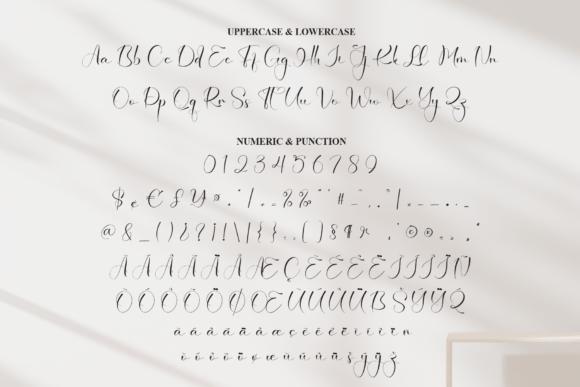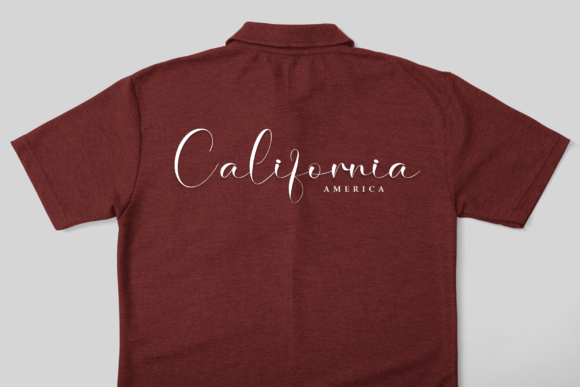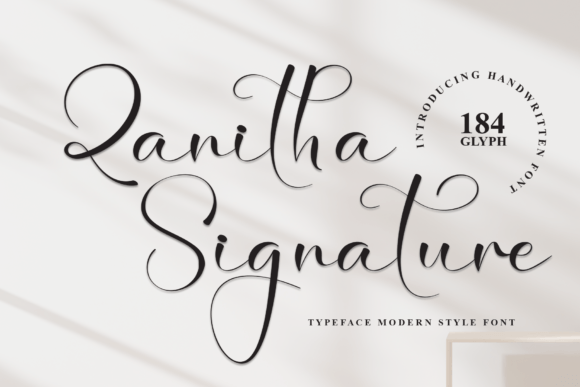
Zanitha Signature Font
Zanitha Signature Font is a font that looks like elegant handwriting. Its letters flow smoothly, giving a personal and stylish touch to whatever you write or design with it. Perfect for adding a classy feel to invitations, cards, or any project that needs a touch of personality.